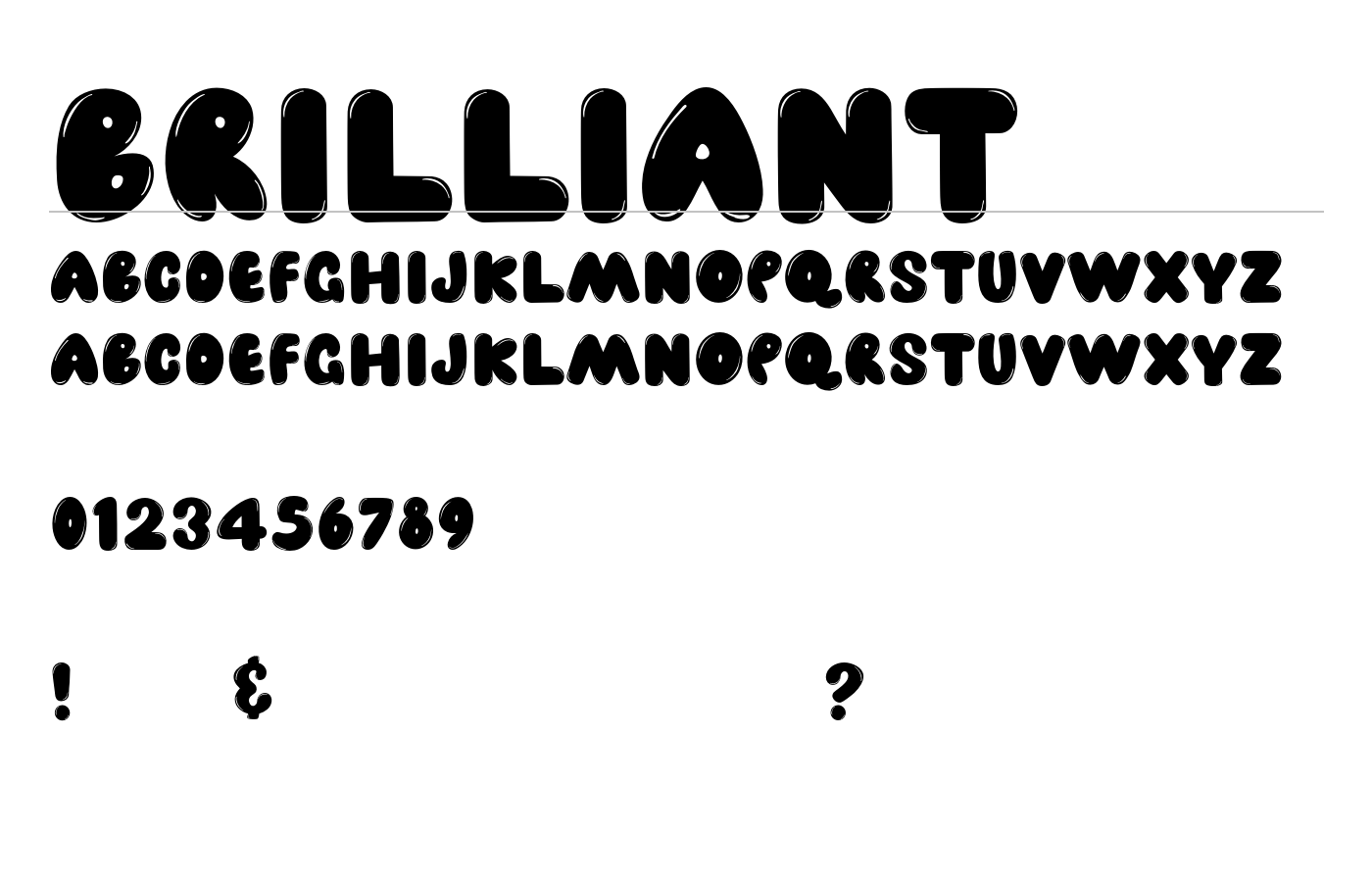
BRILLIANT is a bold, playful display font with rounded, chunky letterforms that exude a friendly and approachable vibe. Its bubbly shapes and subtle shine details make it perfect for fun, casual branding, kids' products, or eye-catching headlines where a cheerful, informal style is desired. Its thick weight and unique character shapes ensure strong visibility and personality in a variety of creative contexts.
BRILLIANT Font
About BRILLIANT Font
| Font family | BRILLIANT Font |